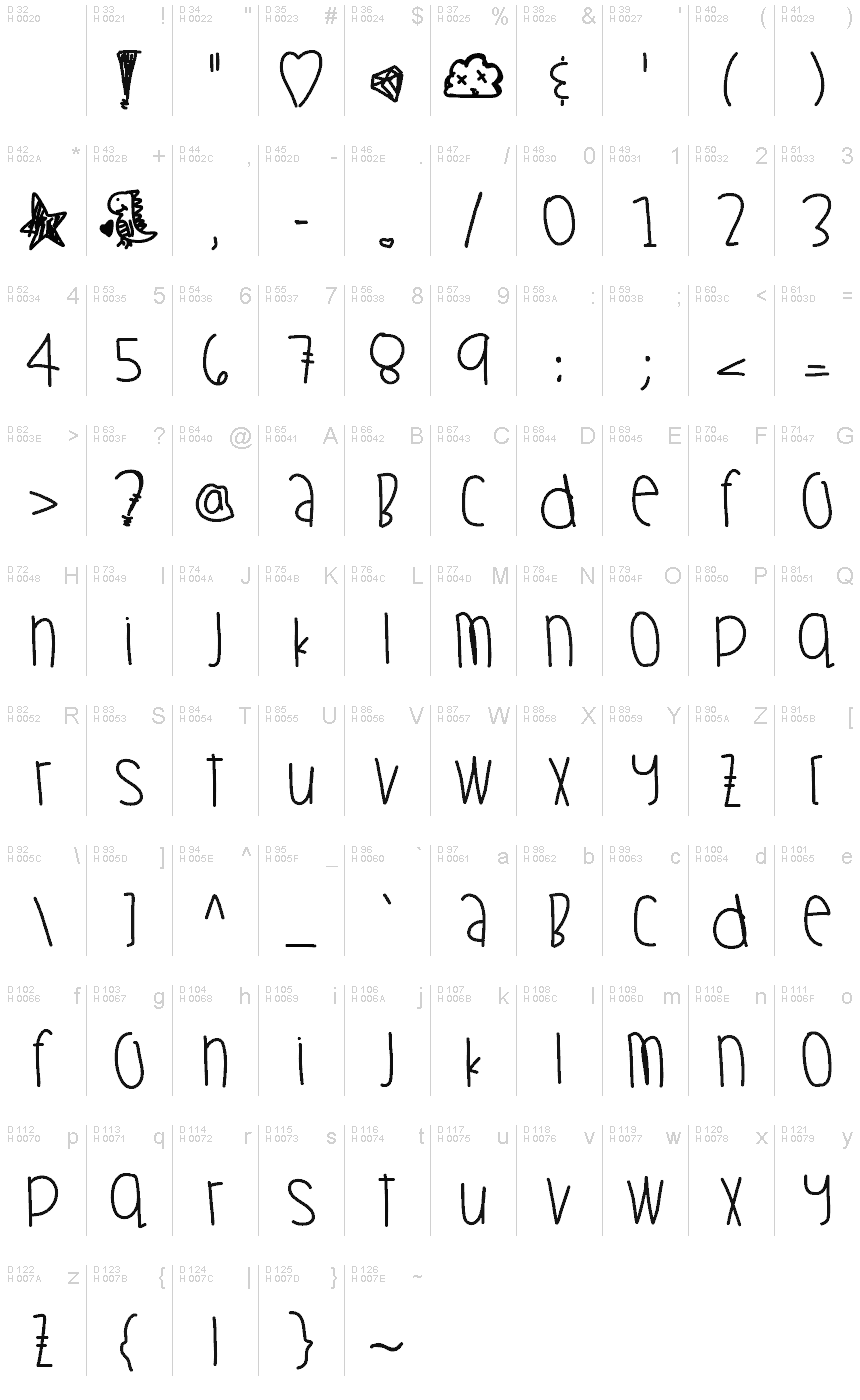
OhStormy
"On Stormy" is a captivating handwritten font designed by Des Gomez. Its light, condensed strokes imbue a sense of movement and fluidity, conveying a dynamic, weathered aesthetic. The organic, expressive forms evoke the unpredictable nature of a stormy sky, making this font an ideal choice for creative projects that demand a touch of natural elegance and drama.
This font's versatility shines through in its potential applications, from editorial design and packaging to event invitations and branding. Its unique character lends itself well to evoking a range of moods, from the whimsical to the moody, making it a valuable asset for designers seeking to craft visually compelling narratives across various mediums.